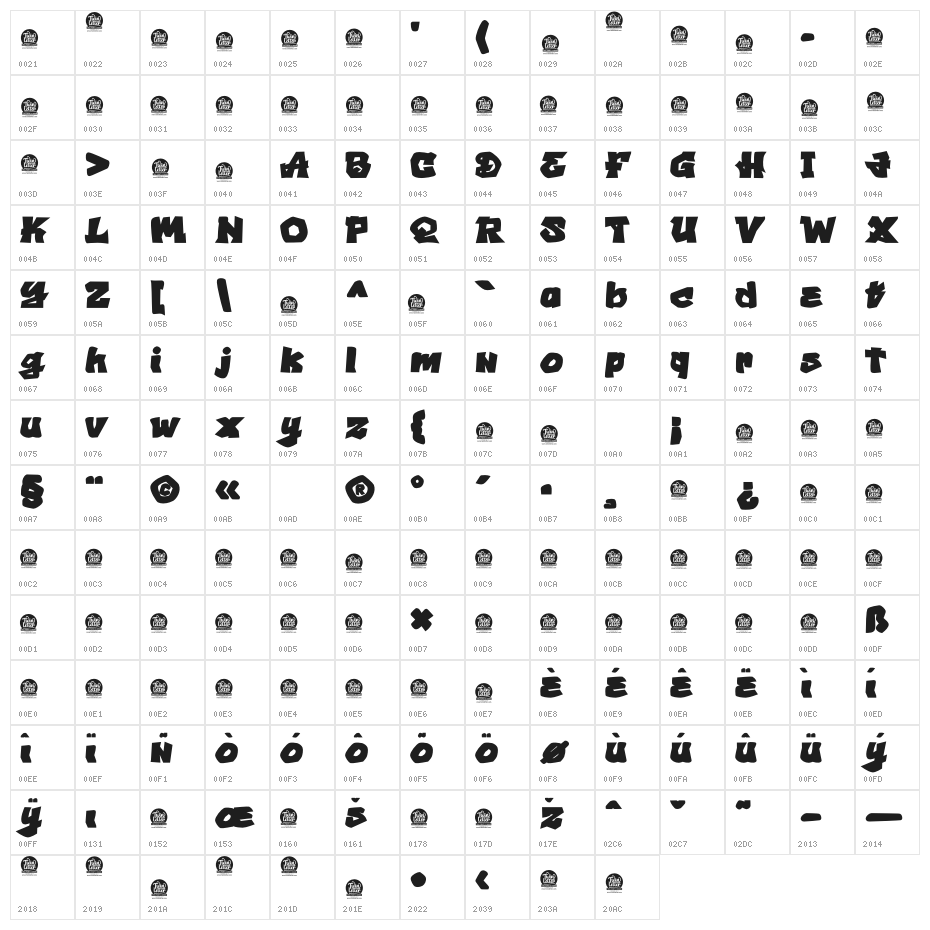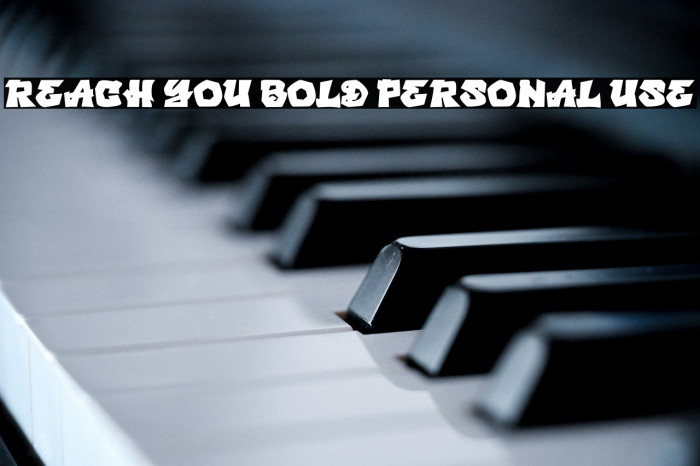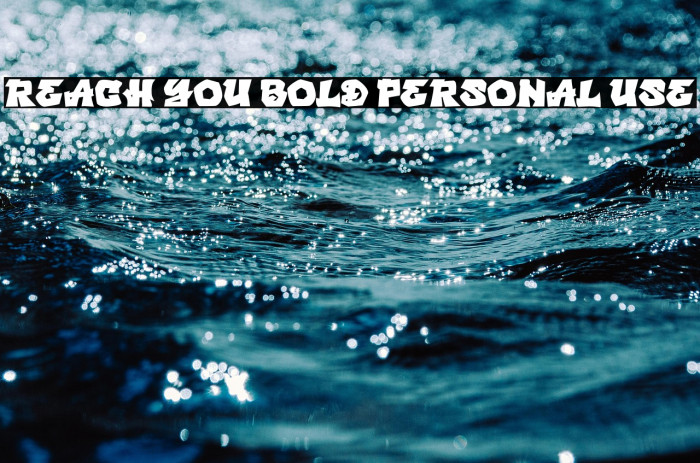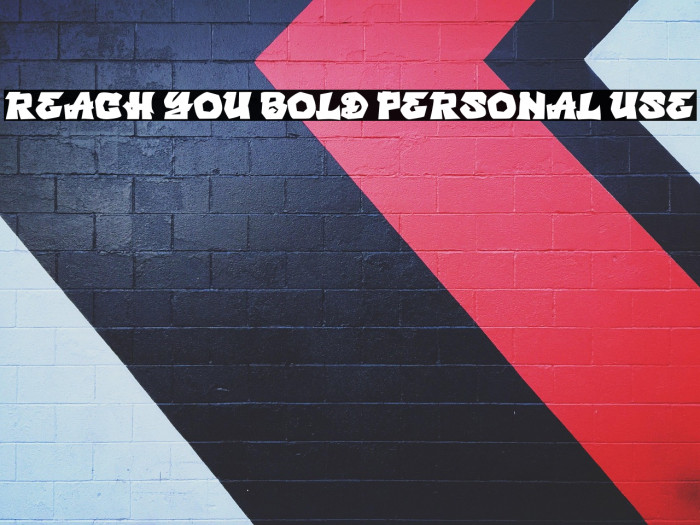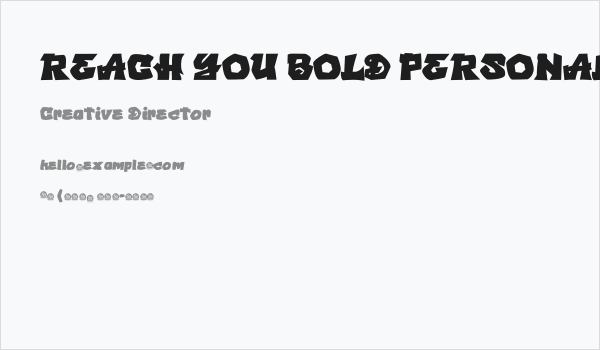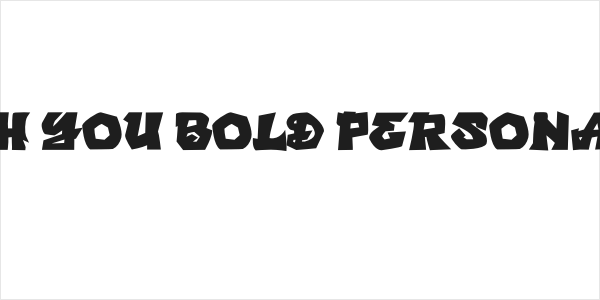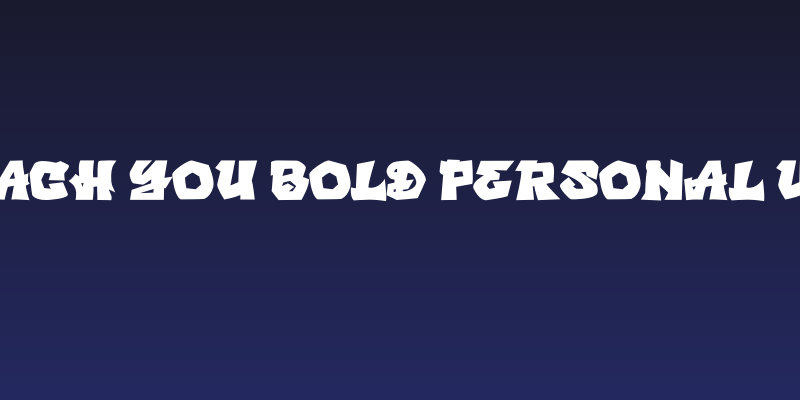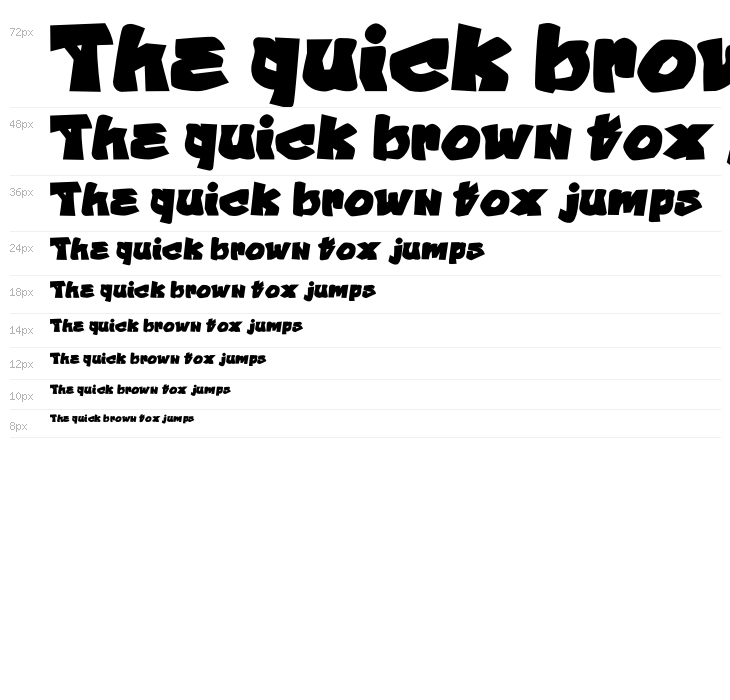
REACH YOU BOLD PERSONAL USE Font
REACH YOU BOLD PERSONAL USE Description
This font features a bold and dynamic style with a distinct graffiti-inspired aesthetic. The characters are thick and angular, with sharp edges and a slightly irregular form that gives it a rebellious and energetic feel. The uppercase and lowercase letters maintain a consistent weight, creating a cohesive look across the alphabet. The numbers and special characters follow the same bold and edgy design, making them stand out. This font is perfect for projects that require a strong visual impact and a modern, urban vibe.
Proposed ProjectsIdeal for street art designs, music album covers, urban-themed posters, and edgy branding projects.